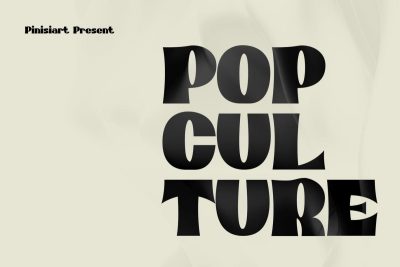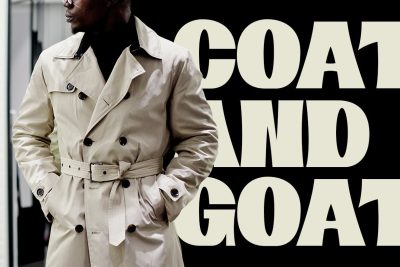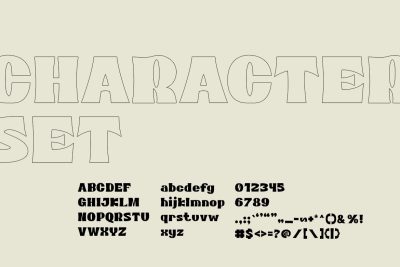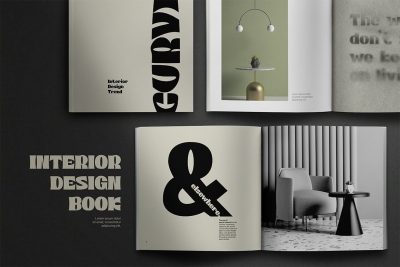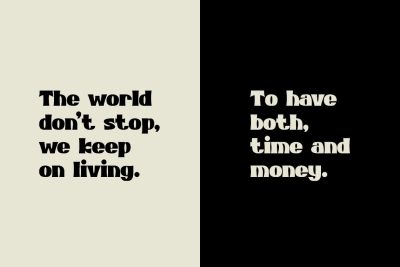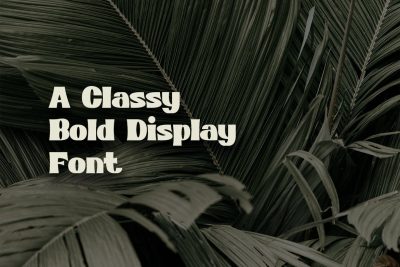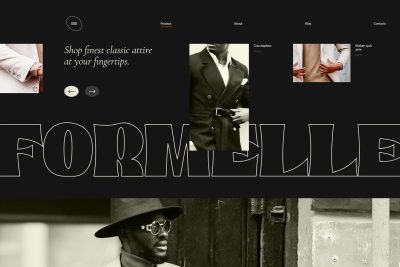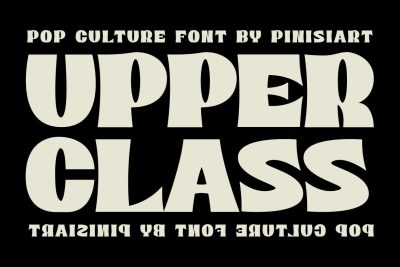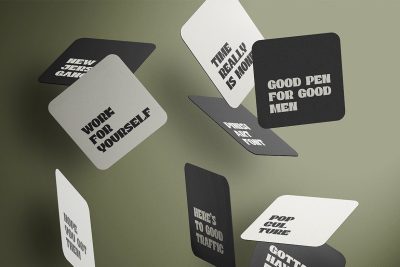
Instagram font Pop Culture” is a bold, eye-catching typeface that captures the lively feel of modern design. Its thick strokes and playful curves create a retro yet modern vibe, making it perfect for projects that need to stand out. The large, blocky letterforms give a sculptural feel, making it ideal for headlines, posters, or digital content where strong visual impact is crucial.
Moreover, the fontโs chunky shapes offer a sense of fun while maintaining readability. This mix of creativity and practicality makes Pop Culture especially great for Instagram. It grabs attention instantly and works well for projects that aim for a playful yet impactful design. Furthermore, the style draws inspiration from mid-century pop art and current digital trends. Whether used in marketing campaigns, event promotions, or social media graphics, it always makes a bold and memorable statement.
Instagram Font Pop Culture Suited For
The Instagram font Pop Culture is ideal for designers, content creators, and brands aiming for a bold, fun image. In particular, it suits industries like entertainment, music, fashion, and lifestyle, where creativity is key. Additionally, influencers or brands looking for a vibrant, edgy aesthetic on Instagram will find this font highly effective.
Pop Culture works well for social media posts, story headlines, and banners, especially when strong visuals are needed. Itโs perfect for targeting younger audiences and those closely connected to pop culture trends. Moreover, creative professionals will appreciate how it adds personality and energy to their designs, making content even more memorable.
Furthermore, graphic designers will find it useful for both digital and print projects. Itโs great for bold headlines on posters, album covers, or flyers. Additionally, it works well for event branding, concert promotions, or even video thumbnails. Overall, Pop Culture is versatile yet distinct, ensuring that any project using it stands out and makes a significant impact.